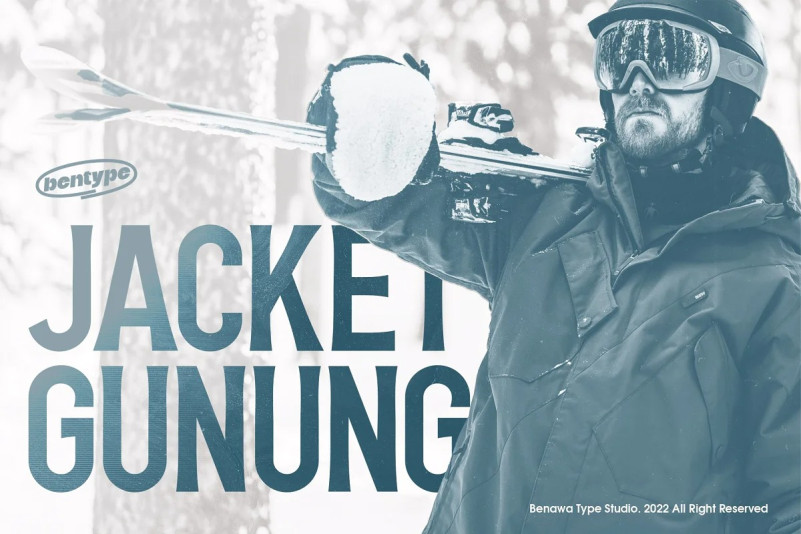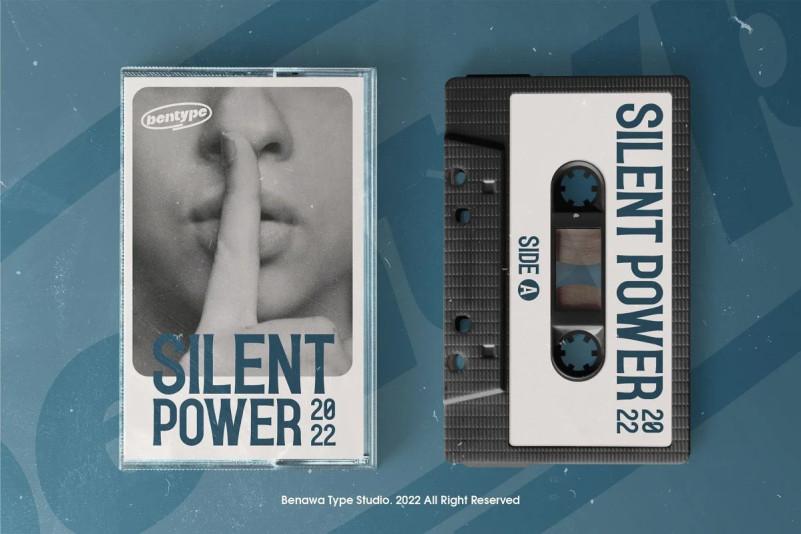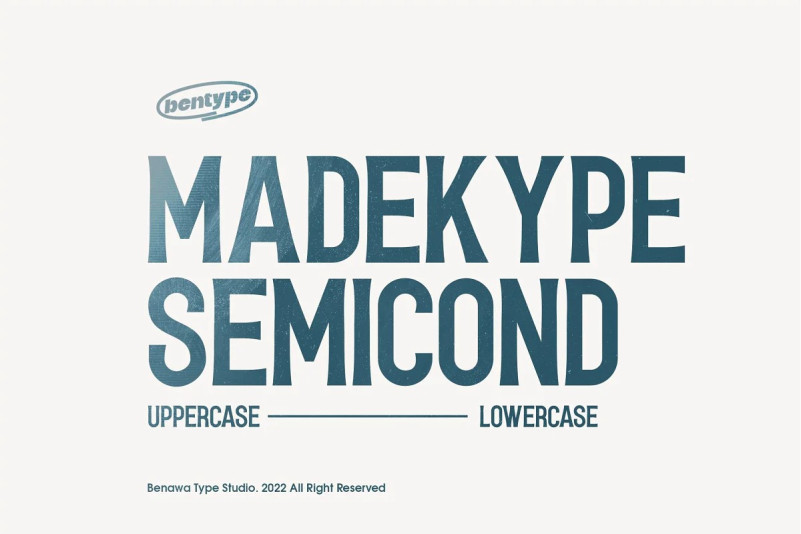
Madekype Font
Madekype Font – Semi Condensed is a sans serif thick typeface. Simple and clean but also gives a modern retro vibes. Making it usable for editorial, graphic design, web look, quotes or as a logo. Also support for multilingual mode.